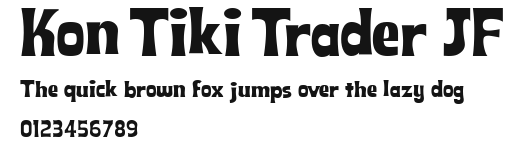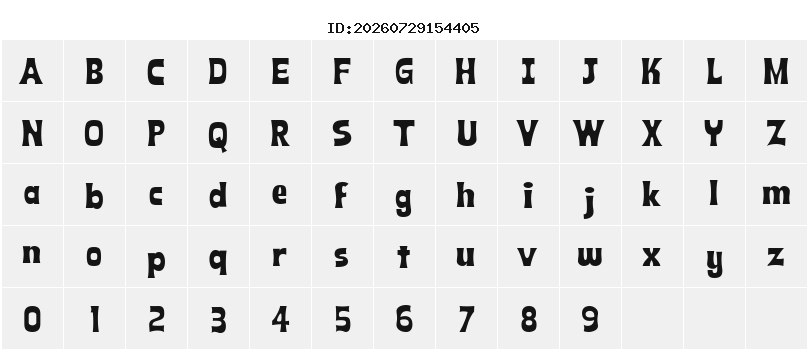
• Font Name: Kon Tiki Trader JF
• Full Font Name: Kon Tiki Trader JF
About Kon Tiki Trader JF.ttf
Kon Tiki Trader JF.ttf is a modern, elegant sans-serif font designed for ultimate readability and visual harmony. Perfect for branding, headlines, web design, and print materials.